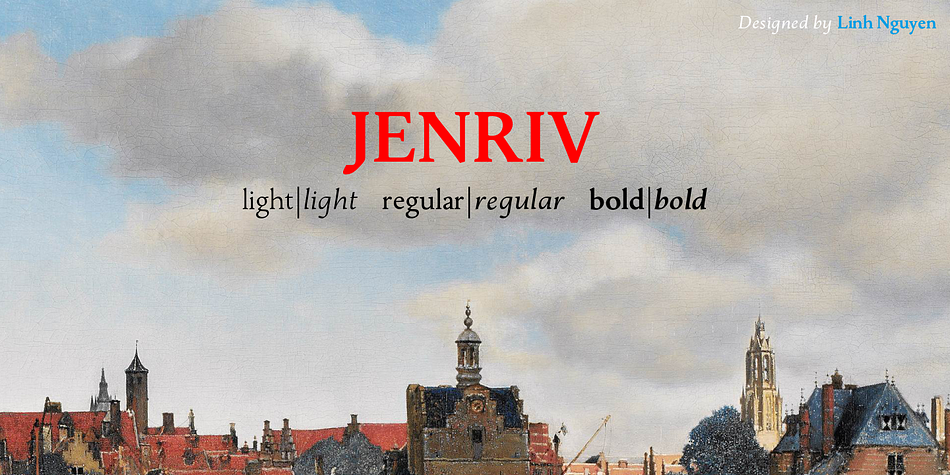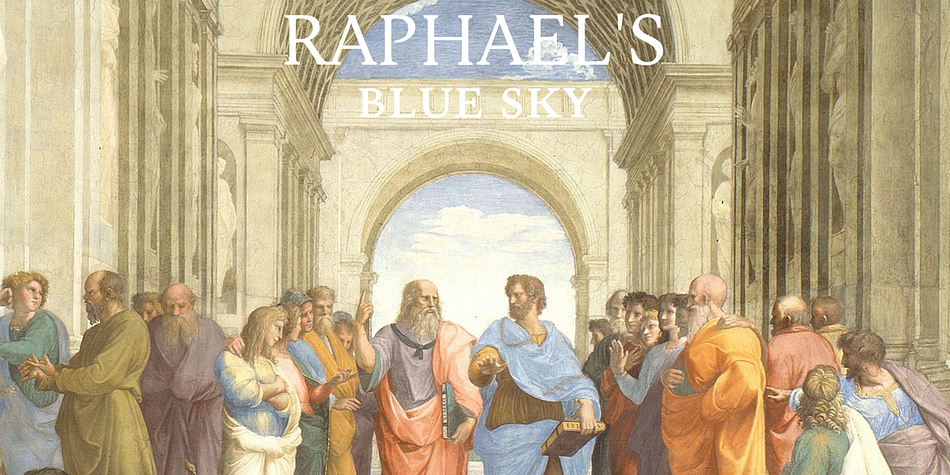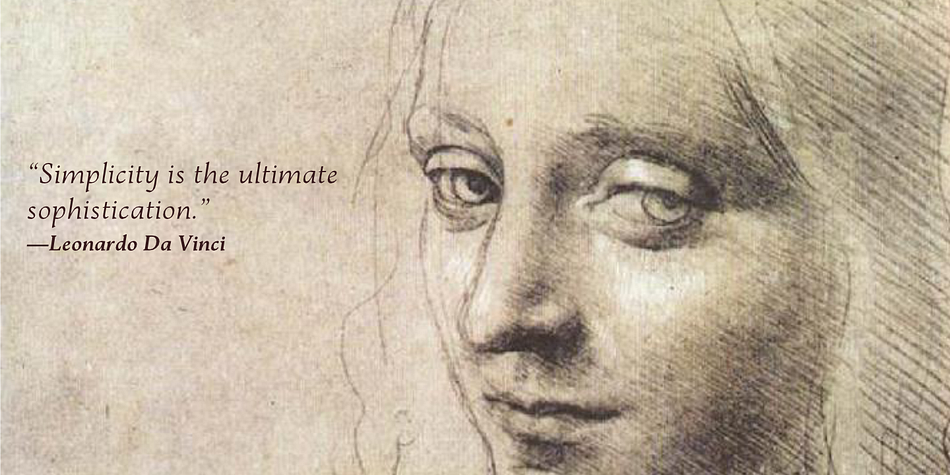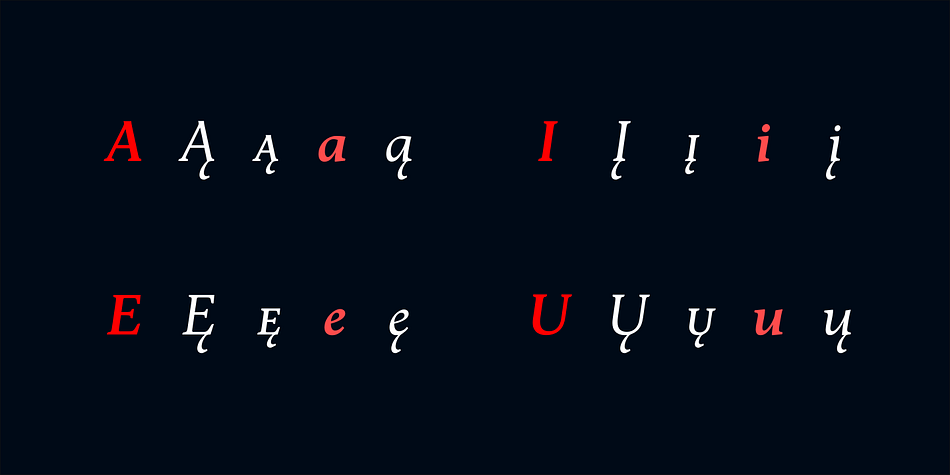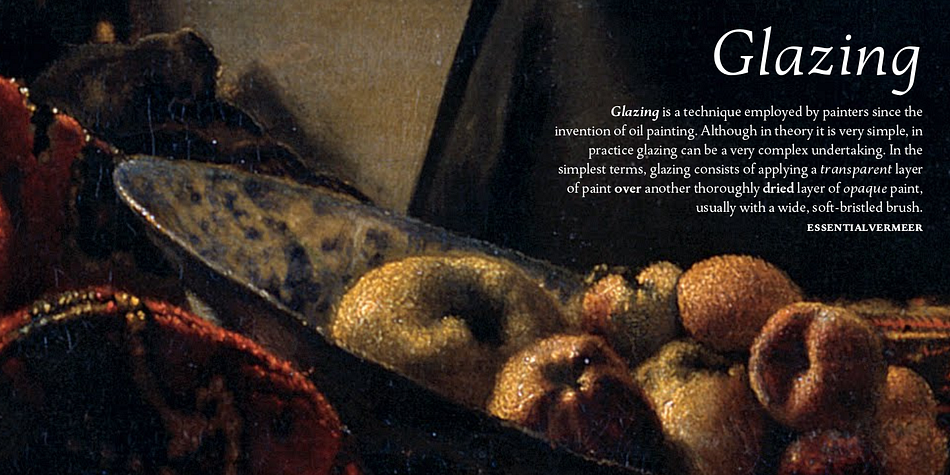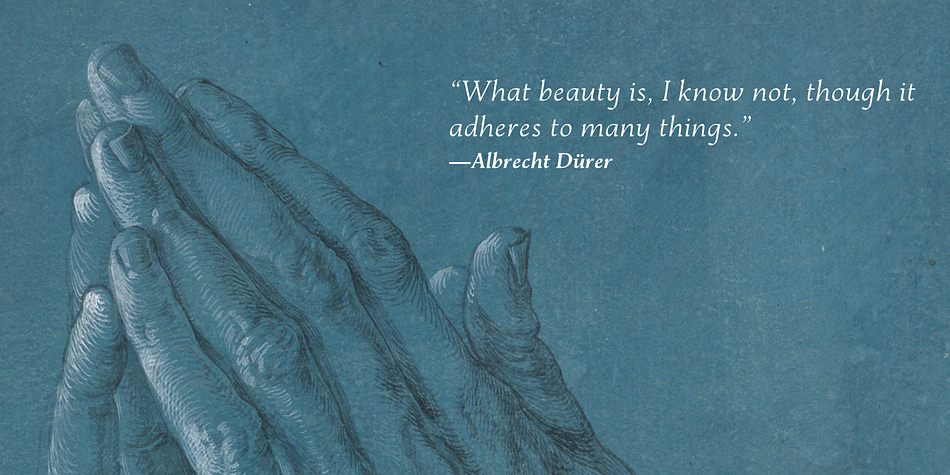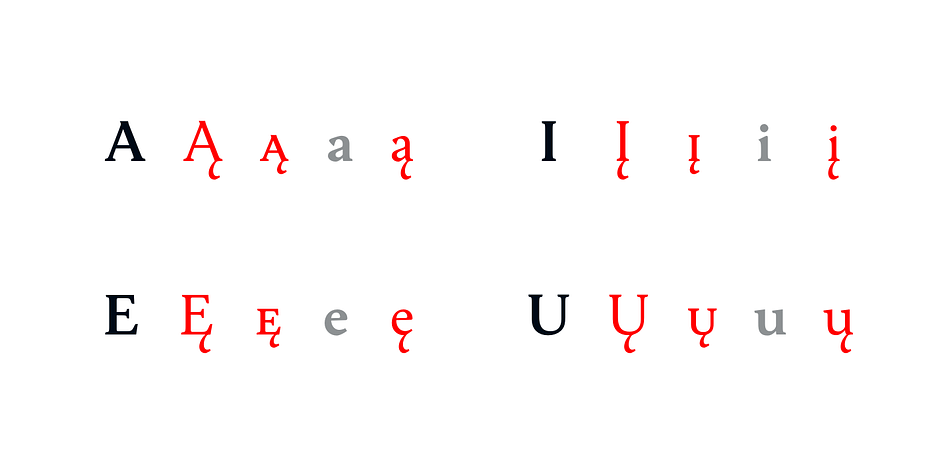
Jenriv is a serif font family. This typeface has six styles and was published by Linh Nguyen.
Inspired by designs of early Renaissance, Jenriv brings out sedate atmosphere and generous inner spaces.
The design was started by a disputable idea of mixing straightforward strokes and curves, which results in kind of masculine figures but calm and humble. It reminds some archaic air but simplified one.
Jenriv embraces text flows, multiple languages and various styles, also with common OpenType features. It is well adapted to a wide range of applications, from medium body text to large headline, or logotype.